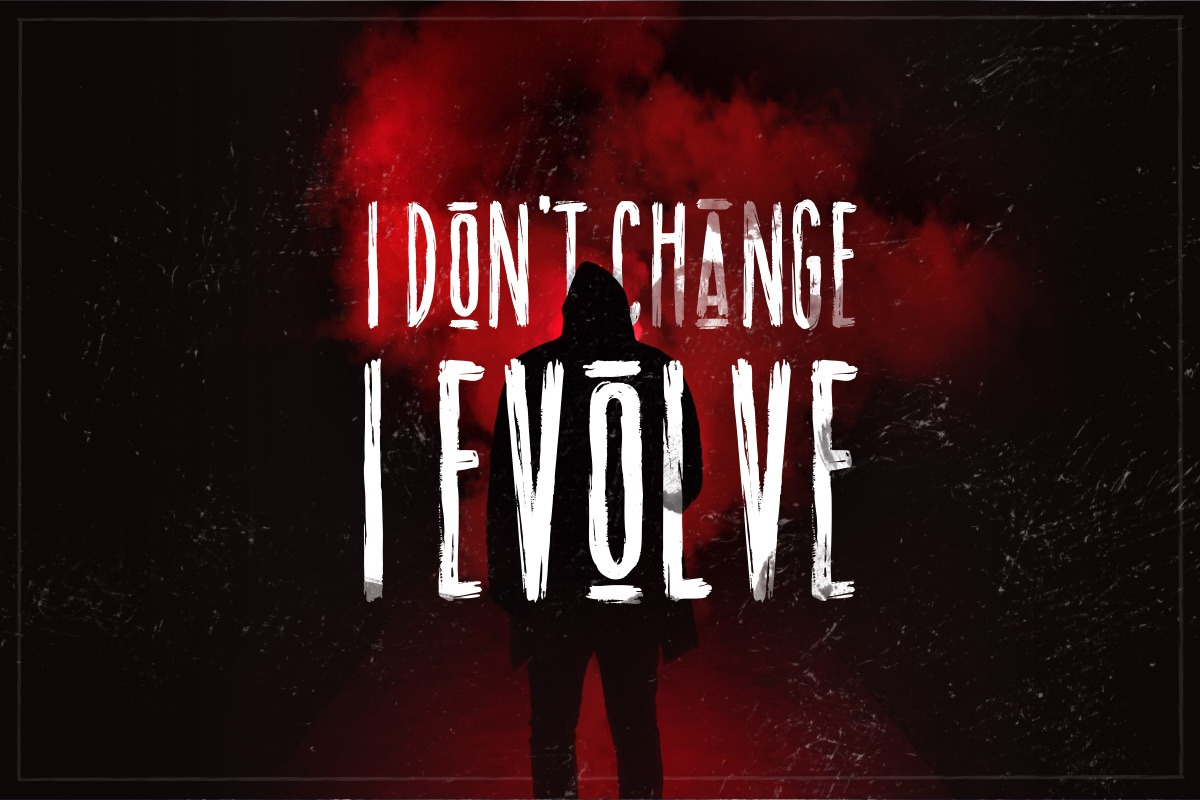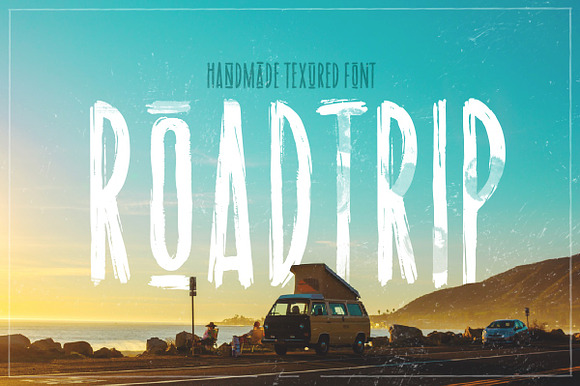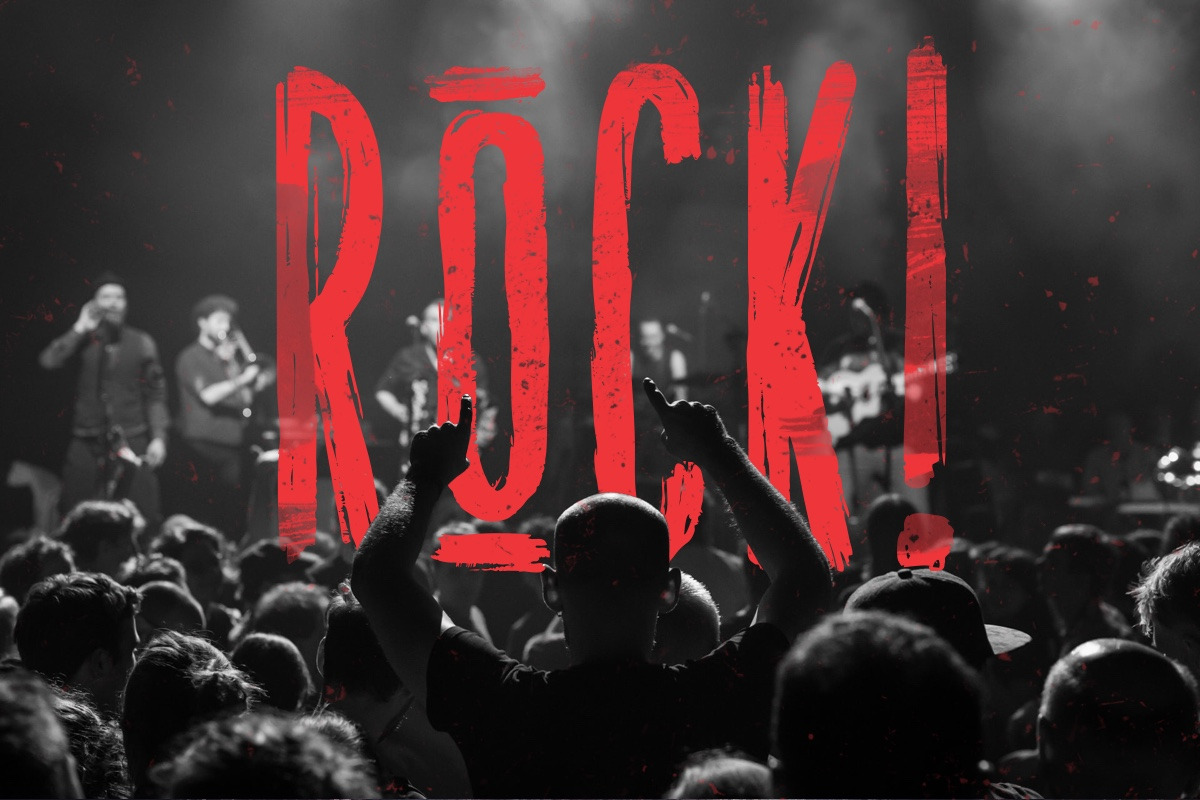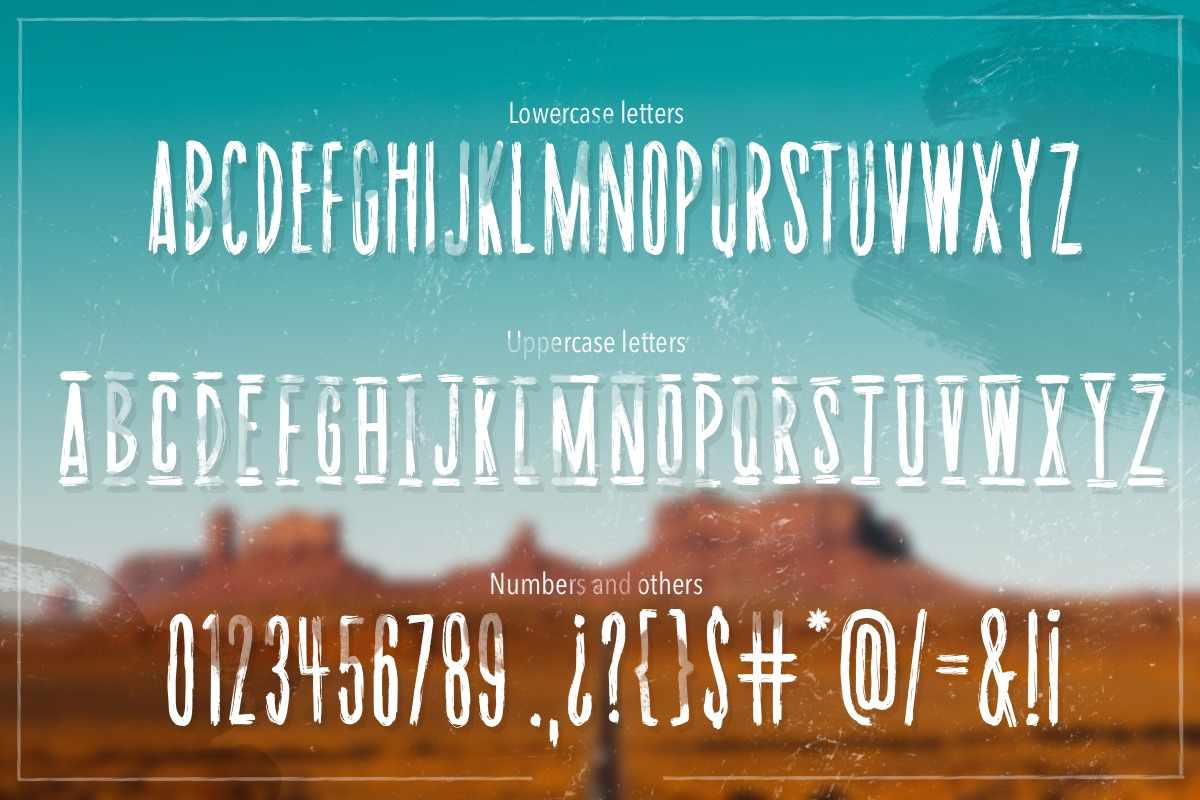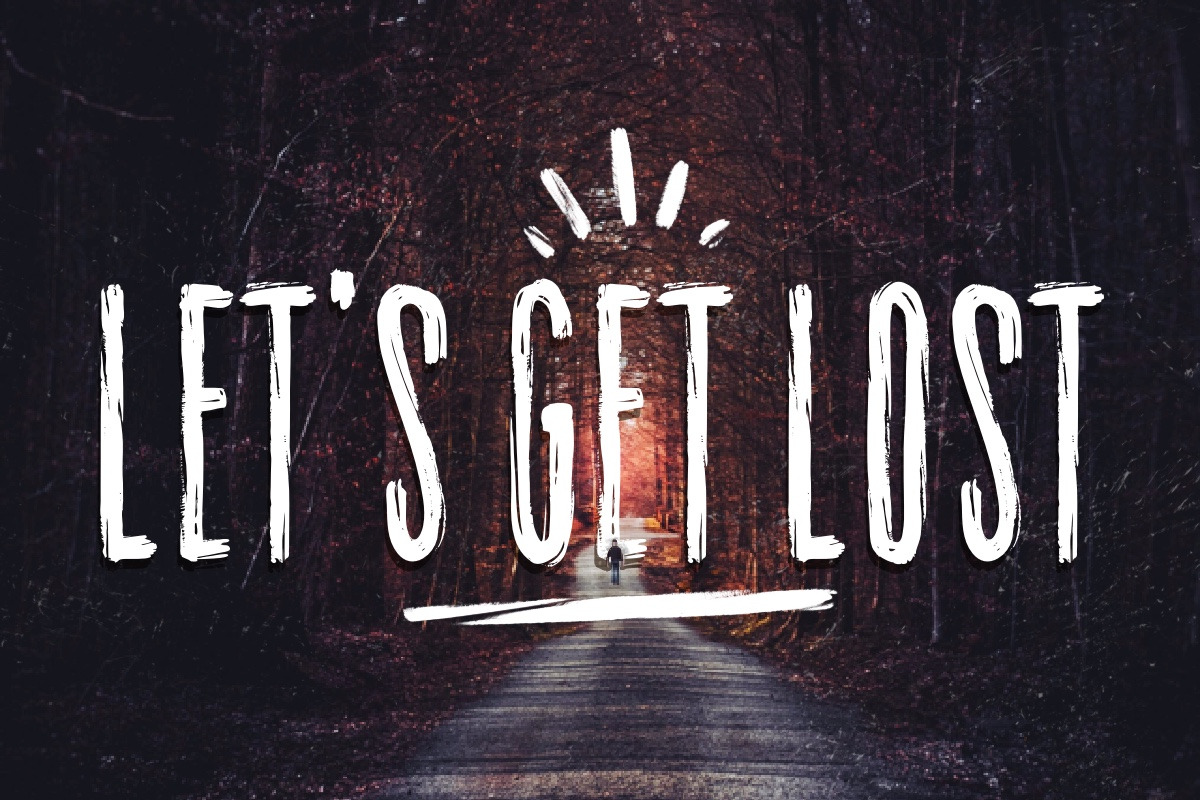
Road trip | dry marker textured font
Road trip | handmade textured font This is a very detailed dry marker font. The texture makes it perfect to add a little grunge touch to your designs! This can turn a simple design into art with a totally handmade vibe.
Design the most awesome logos
Continue giving your brand that handmade vibe that you want
Use it to design incredible merchandise!
English and Spanish supported.